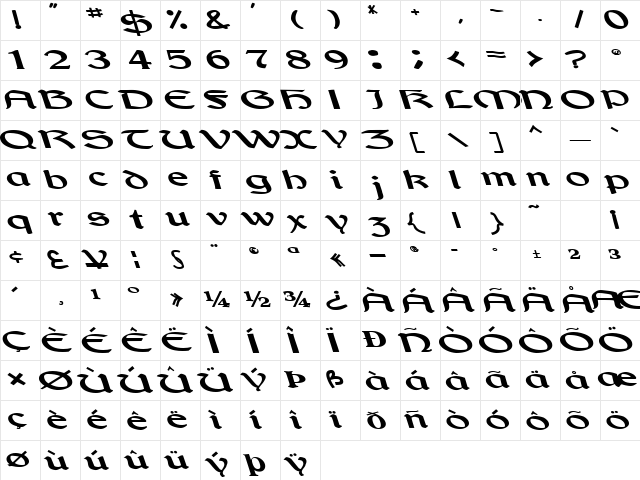
Complete PoeticDreamer Bold glyph index. Displaying only characters natively supported by PoeticDreamer Bold font.
PoeticDreamer is a composed and adaptable typeface that performs quietly and consistently across a wide range of design contexts. Its bold stroke weight gives it real presence on the page.